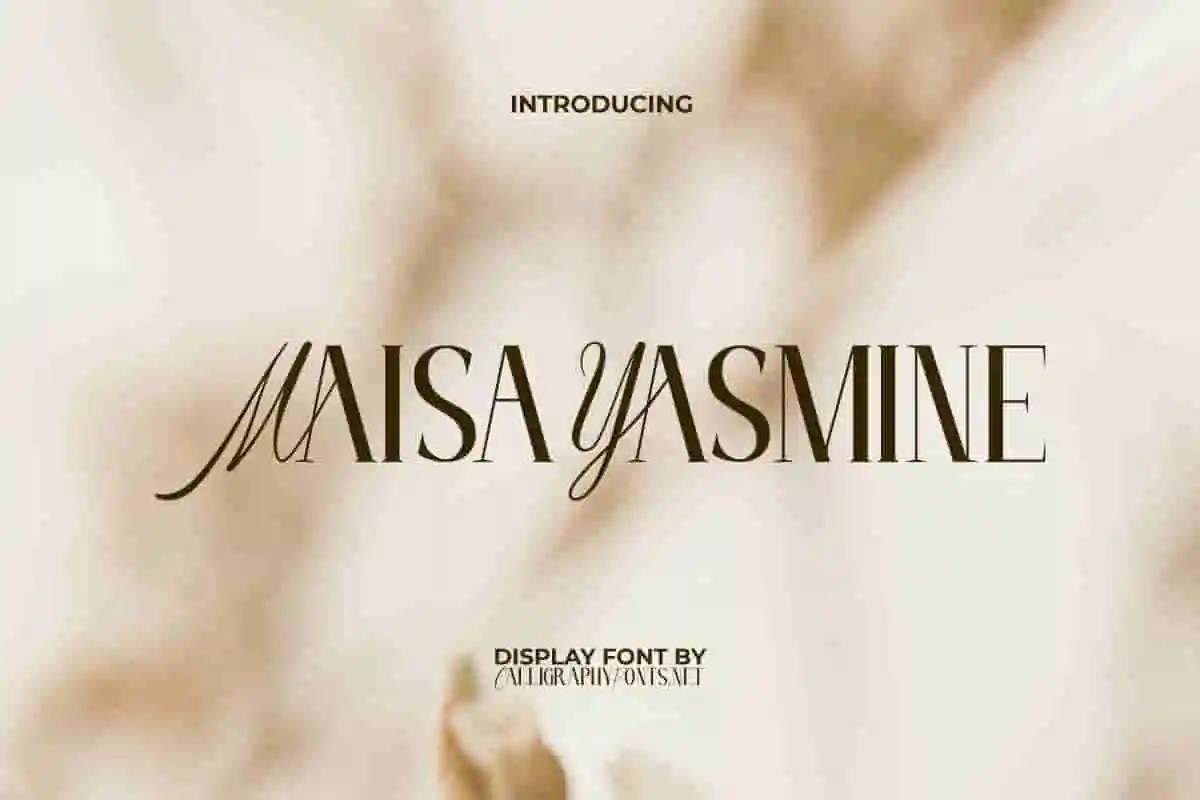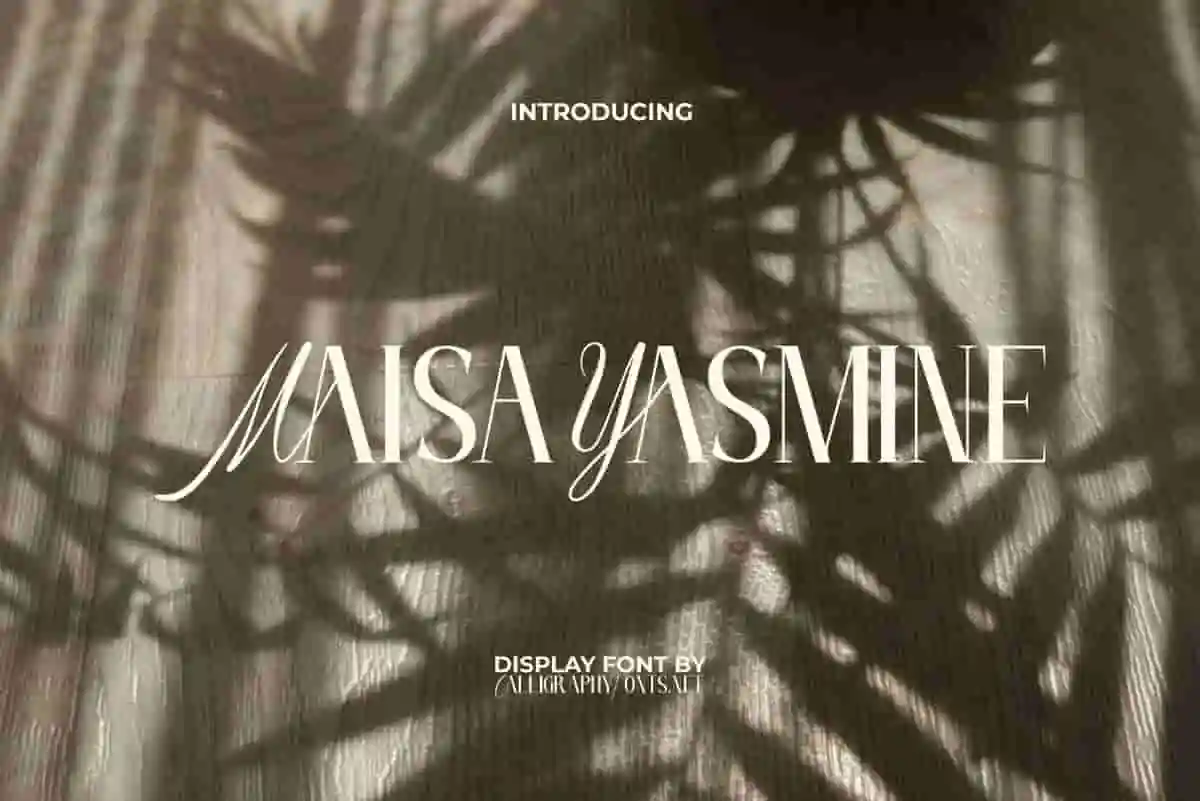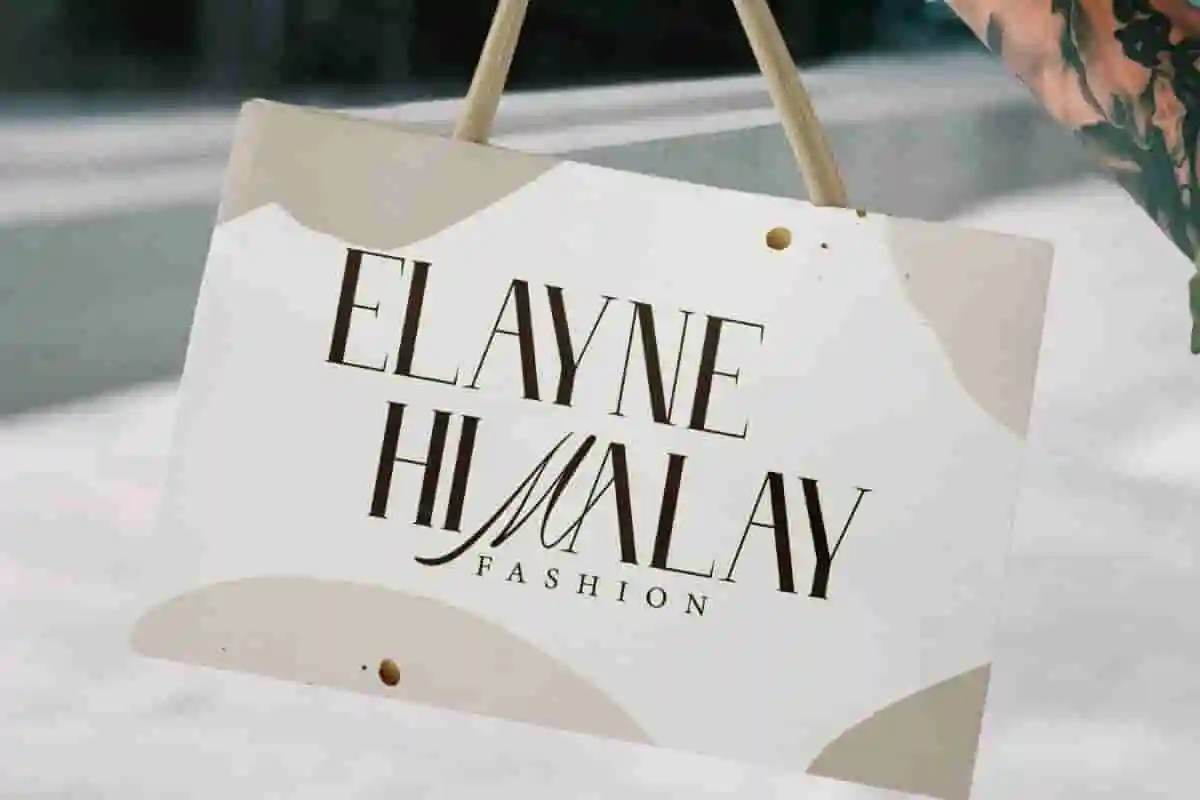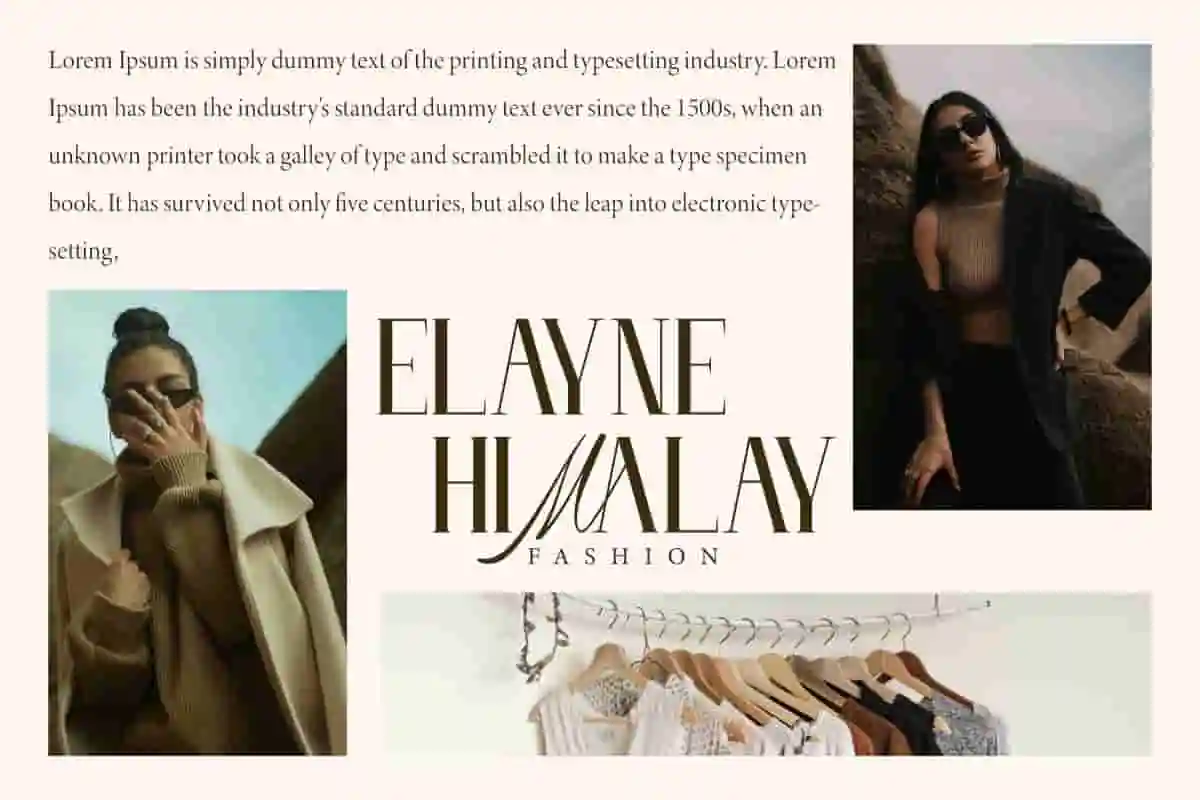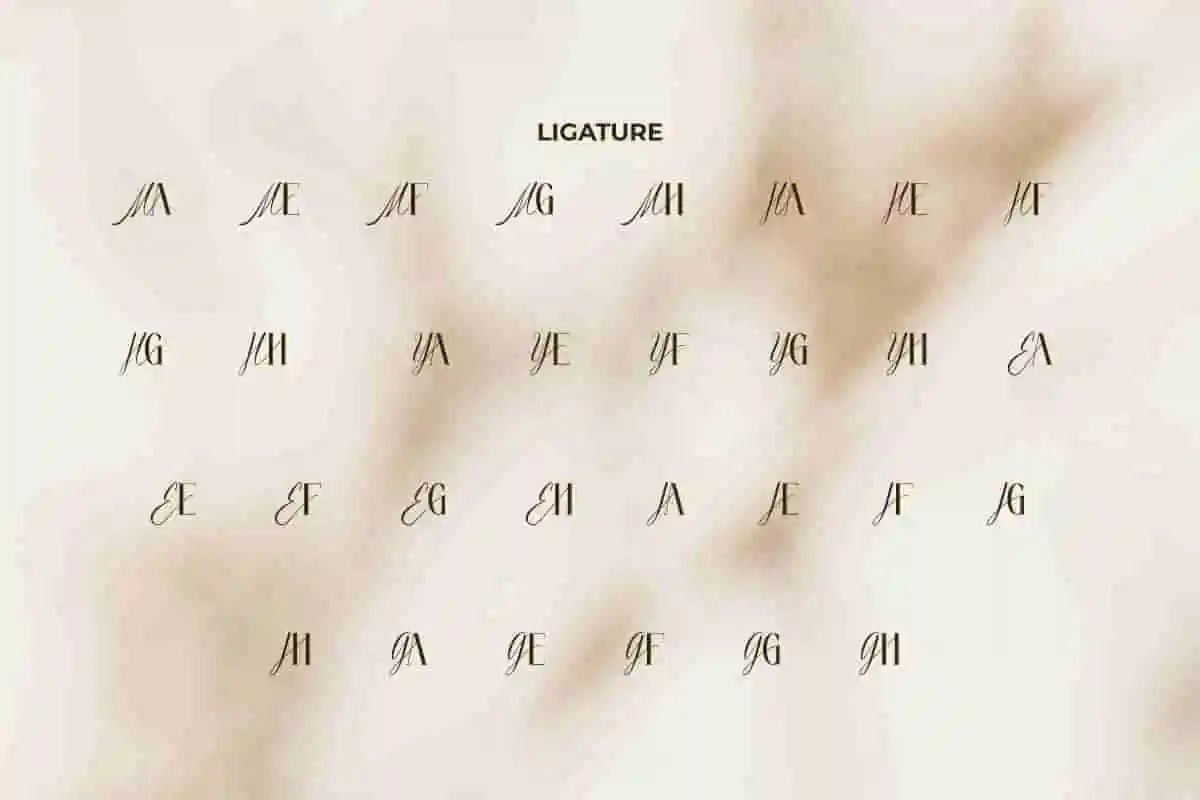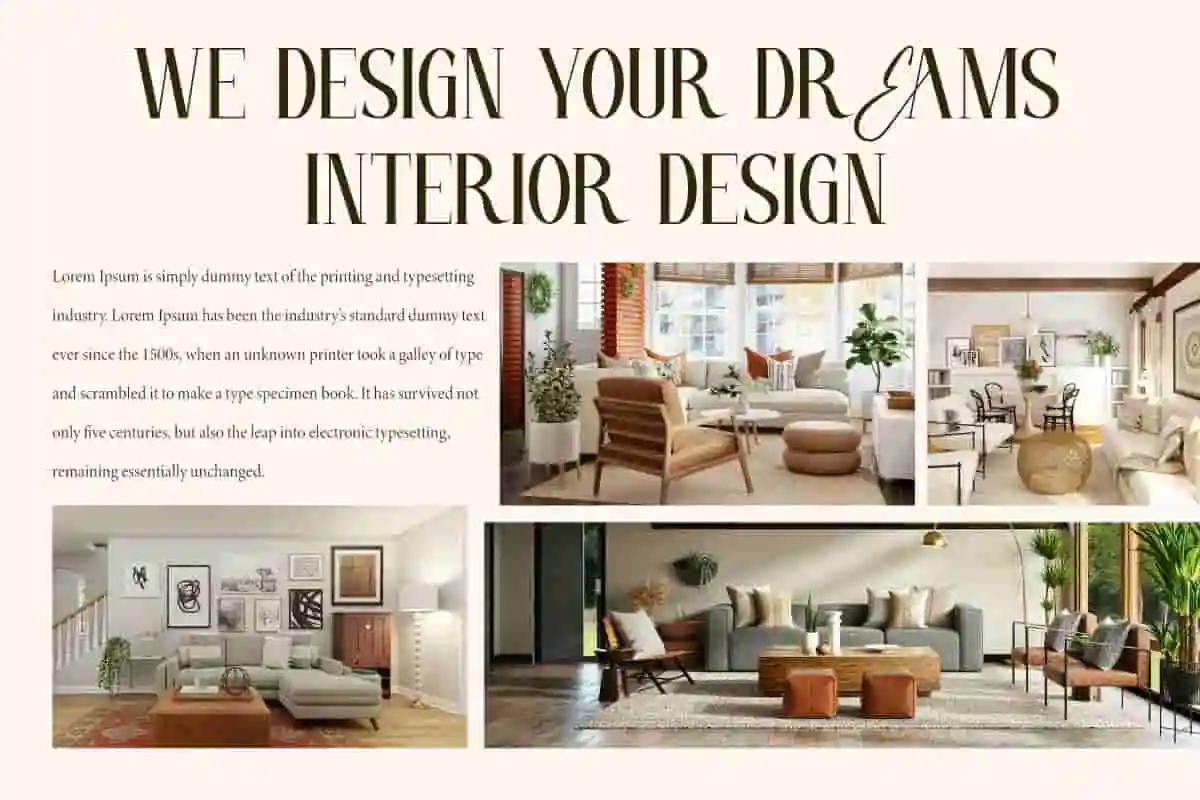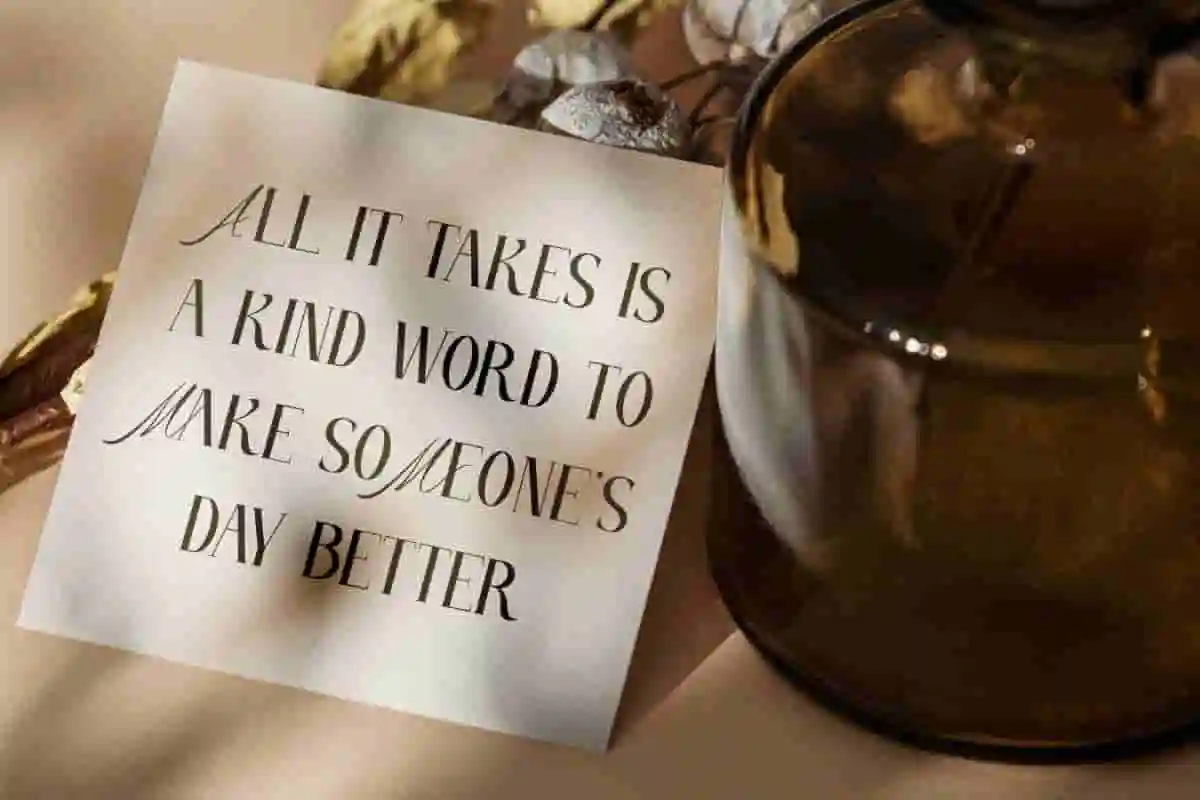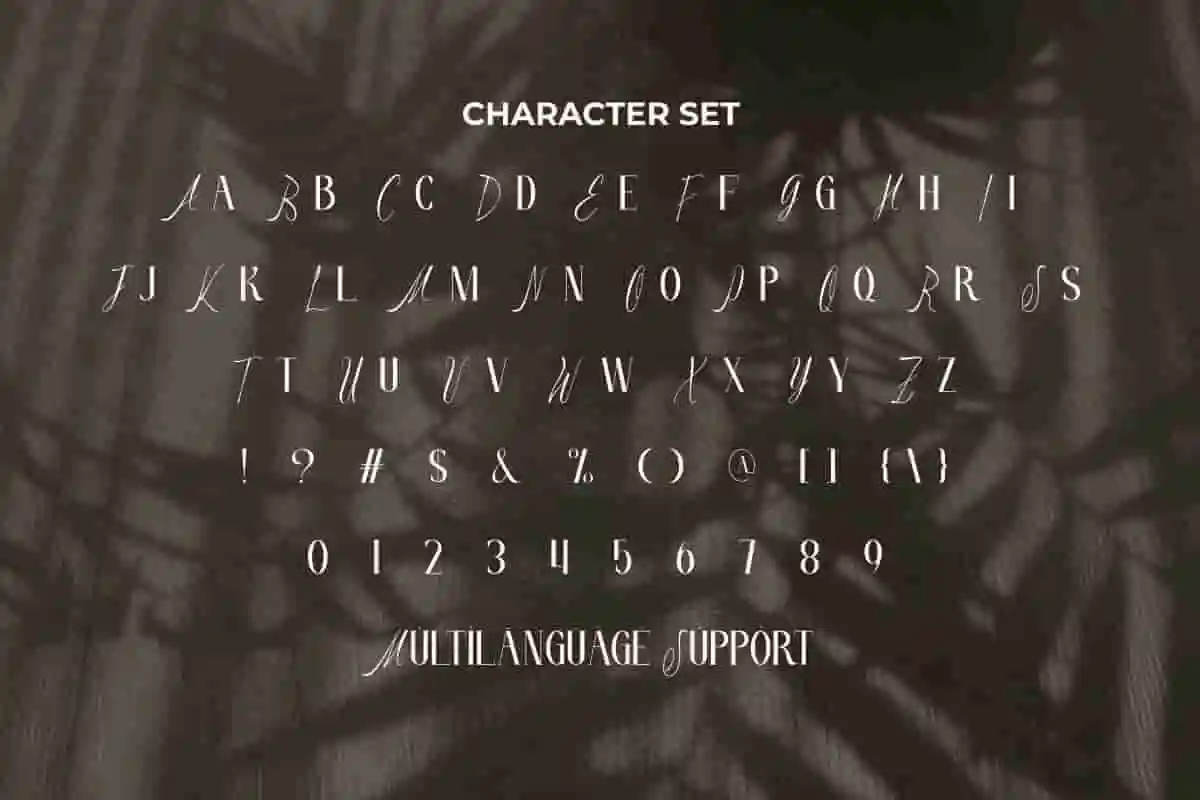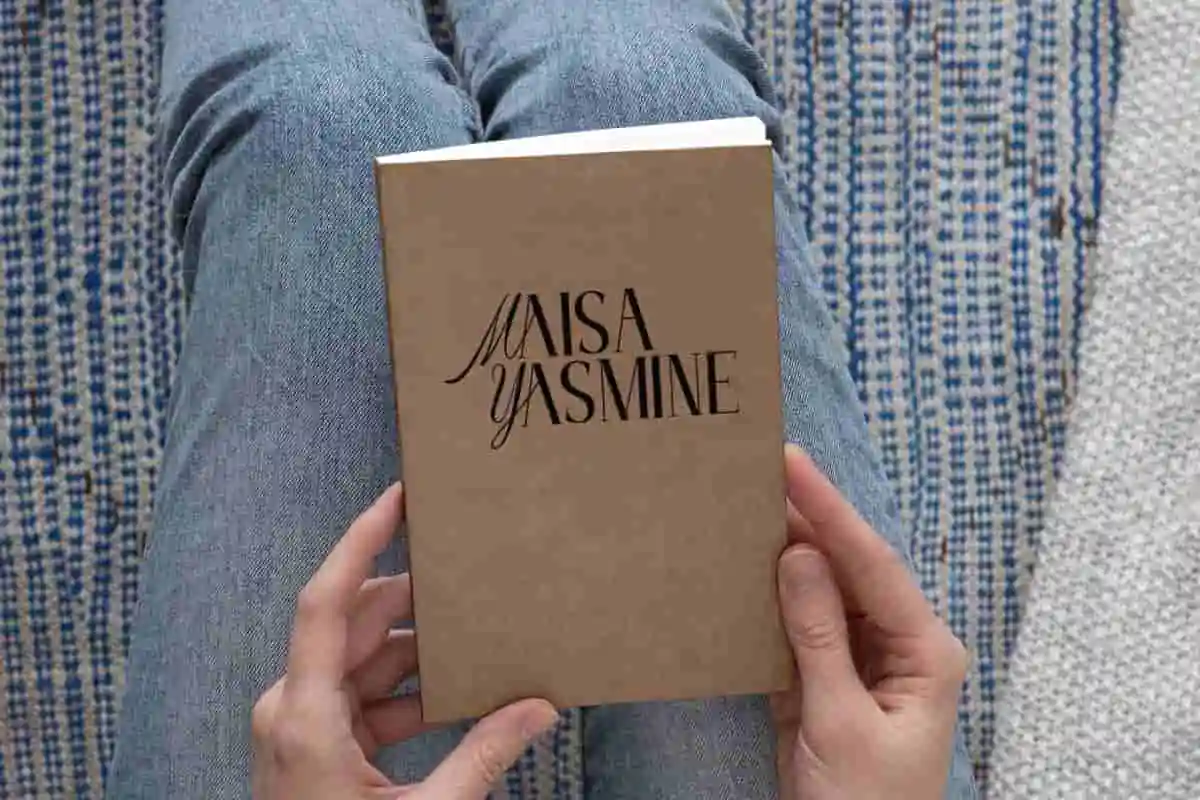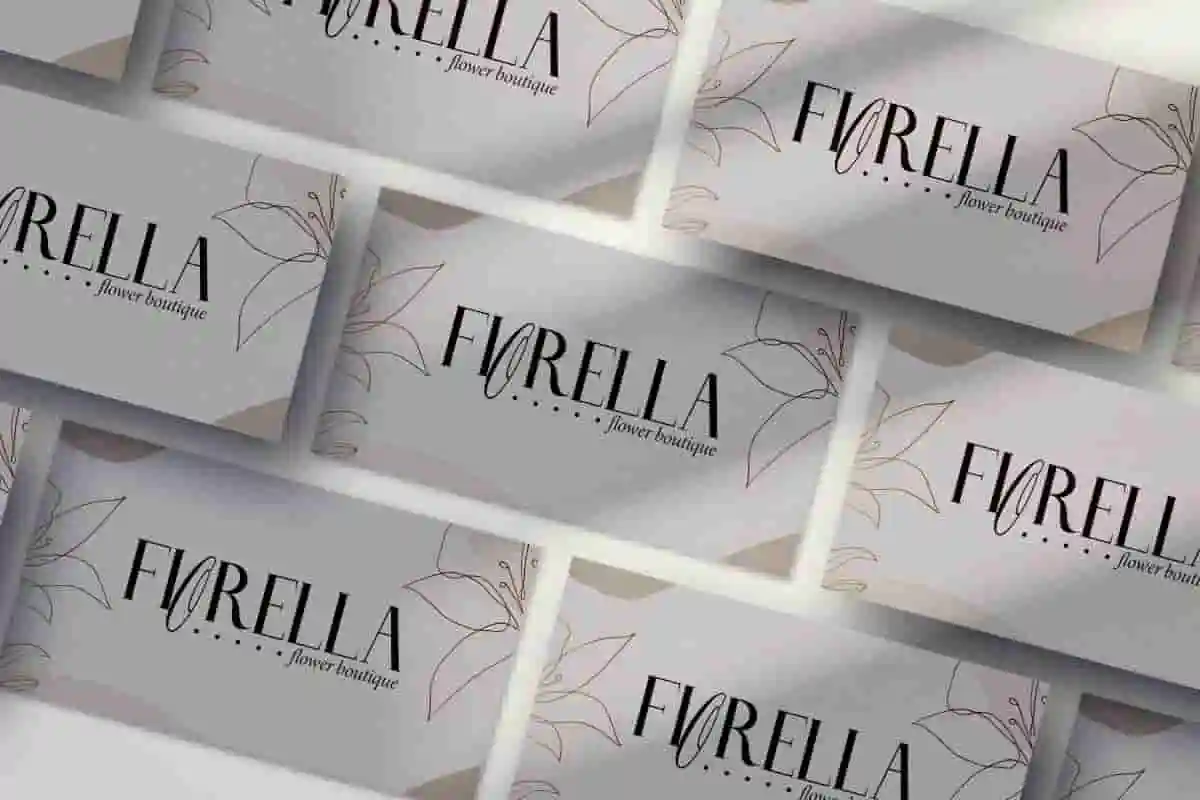
Maisa Yasmine Font
Maisa Yasmine Font is a stylish beautiful font duo from a combination of two styles of typefaces. Awesome for a variety of purposes from branding to marketings.
Maisa Yasmine Font is a charming display font duo with timeless elegance and a classy feel that is easy to read from the perfect blend of classic and modern styles. It combines a signature handwritten style with serif capital letters that are equally elegant in every character. It will be perfect for apparel, authors, boutique, fashion, florist, graphic design, home designer, home furniture, photography, restaurant, writer, and more.
Your typography is the soul of your design, and with Maisa Yasmine Display Font, elegance becomes effortless. This modern script font is designed to add sophistication, romance, and a personal touch to every project. Whether you’re crafting wedding invitations, branding for luxury products, or designing social media content, Maisa Yasmine delivers a graceful look that never goes out of style.
Maisa Yasmine is more than just a typeface—it’s a way to express emotion through design. Its timeless script makes your message feel personal, heartfelt, and unforgettable. Whether you’re building a high-end brand identity or creating memorable event materials, this font elevates your work with elegance and style.
In a world full of generic typography, let Maisa Yasmine Display Font be the detail that sets your designs apart.
Maisa Yasmine Display Font provides visual appeal to enhance the professionalism of any of your projects. The letterforms are captivating with smooth curved lines and a constant look that makes it full of charisma. This versatile font can also be used for blogs, business card, covers, greeting cards, heading, packaging, paper bag, quotes, stationery, title, website, and more.
Maisa Yasmine Display Font comes with a complete set of ALL CAPS for both Uppercase and Lowercase Basic Characters with different looks and styles, Numbers, a large range of Punctuation, Symbols and Ligature. It is supported with multilingual characters and ready to use both on Windows machine or Mac with simple installations. It’s tested to work well in the Adobe Apps (Illustrator, Adobe InDesign, Adobe Photoshop) CorelDraw, and others. PUA Encode Characters means you can access all the characters easily – Fully accessible without additional design software.